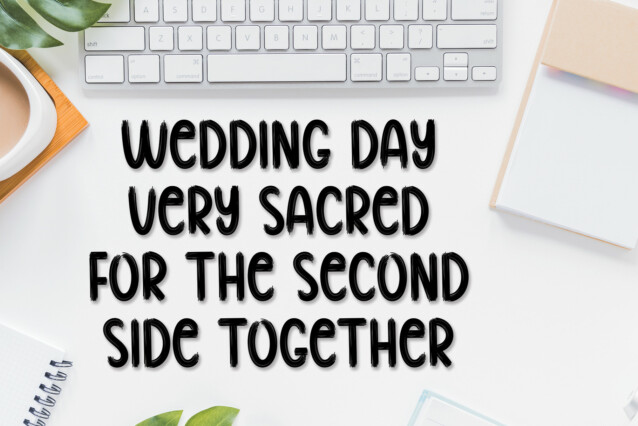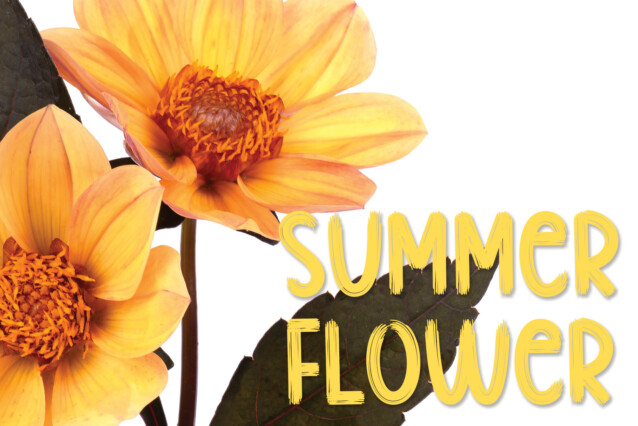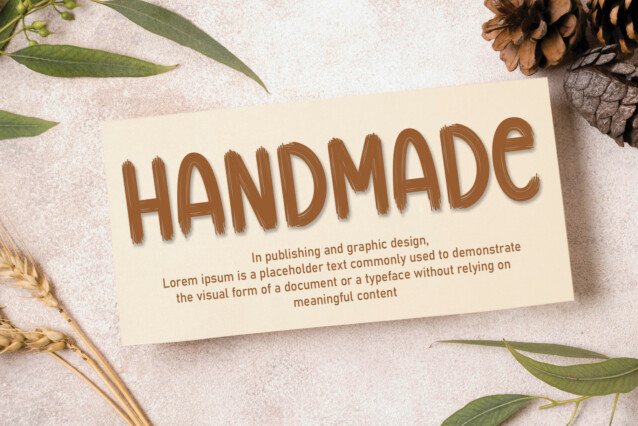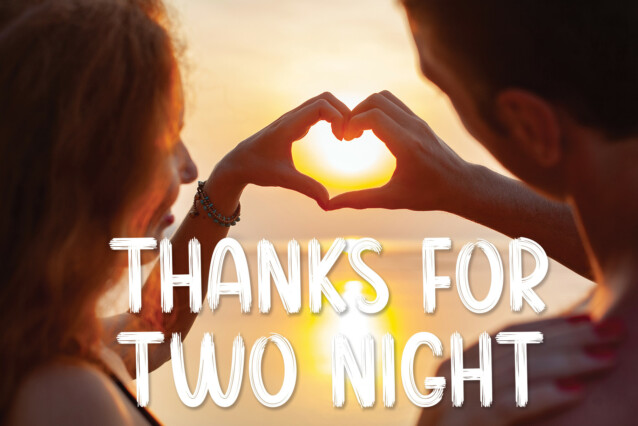
Finger Display Font
Finger Display Font is a cool, brush-style display font. No matter the topic, this font will be an incredible asset to your fonts’ library, as it has the potential to elevate any creation.